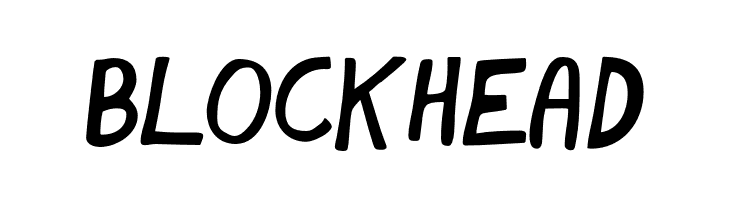
A classic serif font with elegant proportions and moderate contrast, ideal for traditional and refined designs.
A classic serif font with sharp serifs and a sophisticated appearance.
A playful, handwritten font with rounded, bold characters.
A playful, hand-drawn font with bold, irregular shapes and high contrast.
A graceful script font with a natural handwritten style.
A classic serif font with elegant strokes and moderate contrast.
A bold, patriotic font with stars and stripes, ideal for thematic designs.
A bold, rounded font with a playful and modern style.
A spooky, dripping font ideal for horror themes.
A playful, bold, and rounded font with a hand-drawn feel.